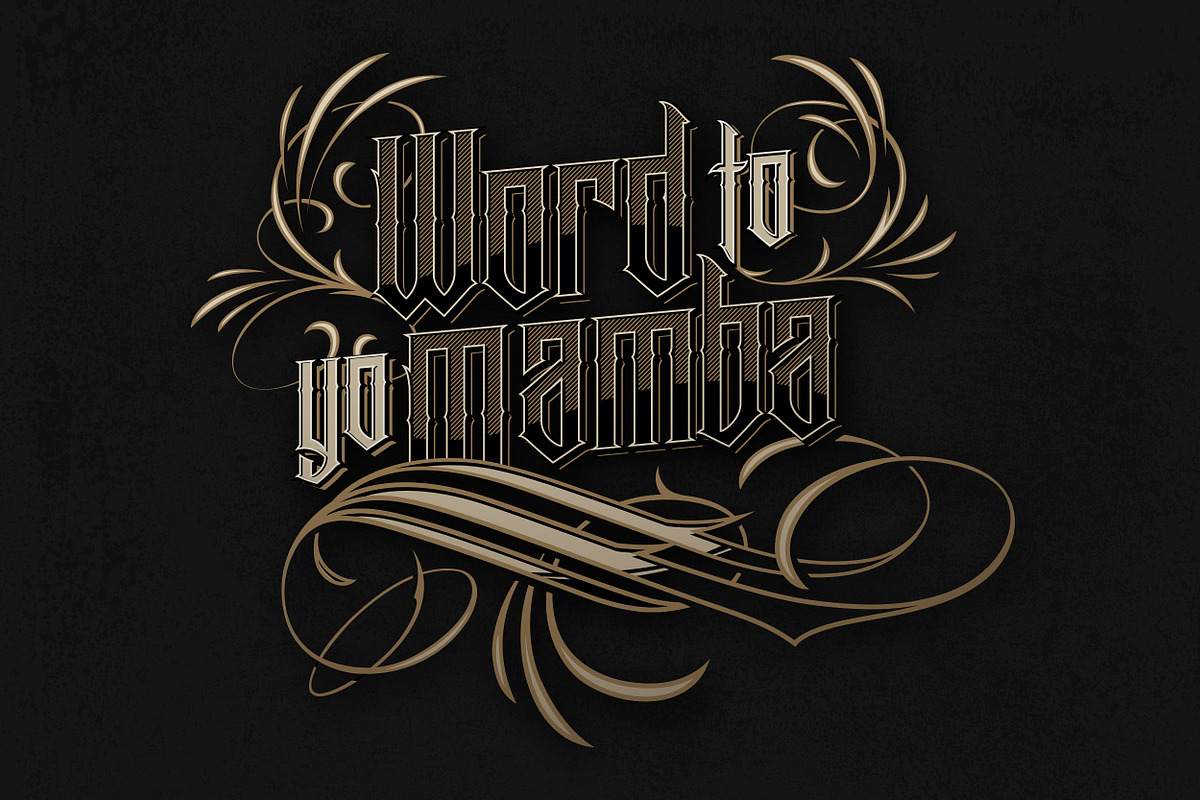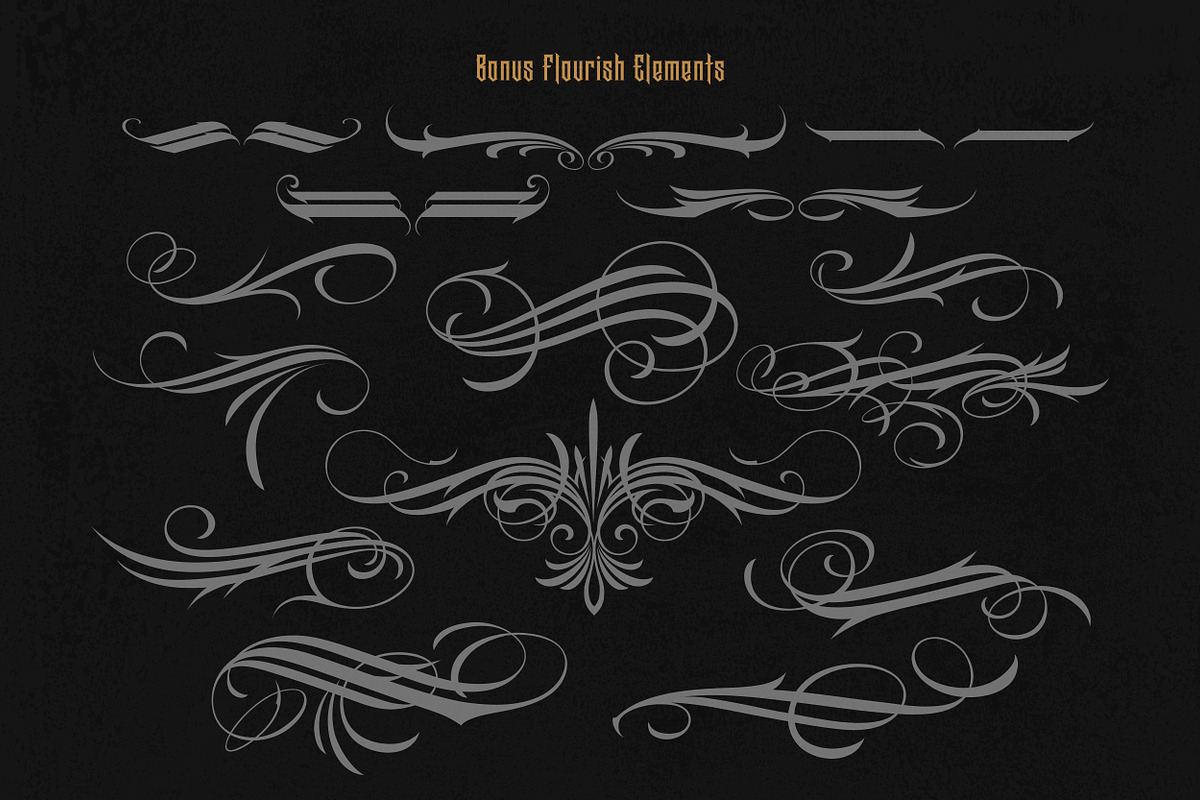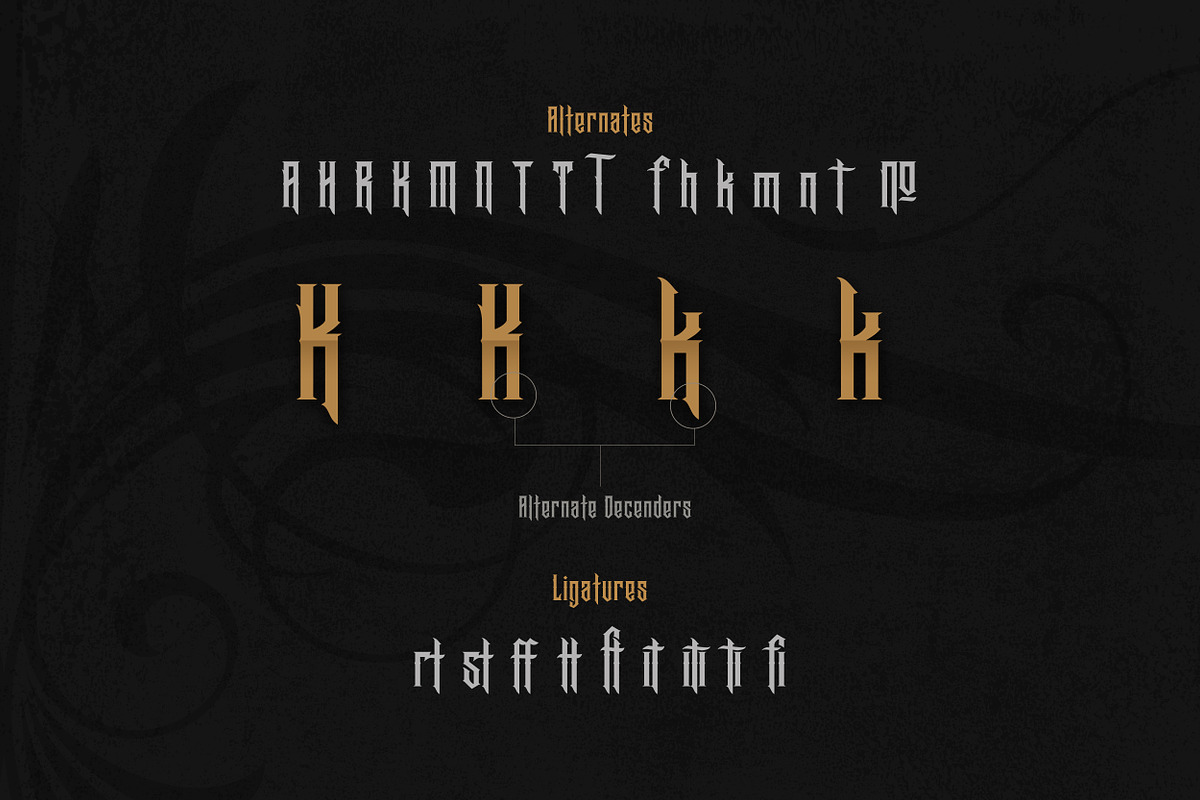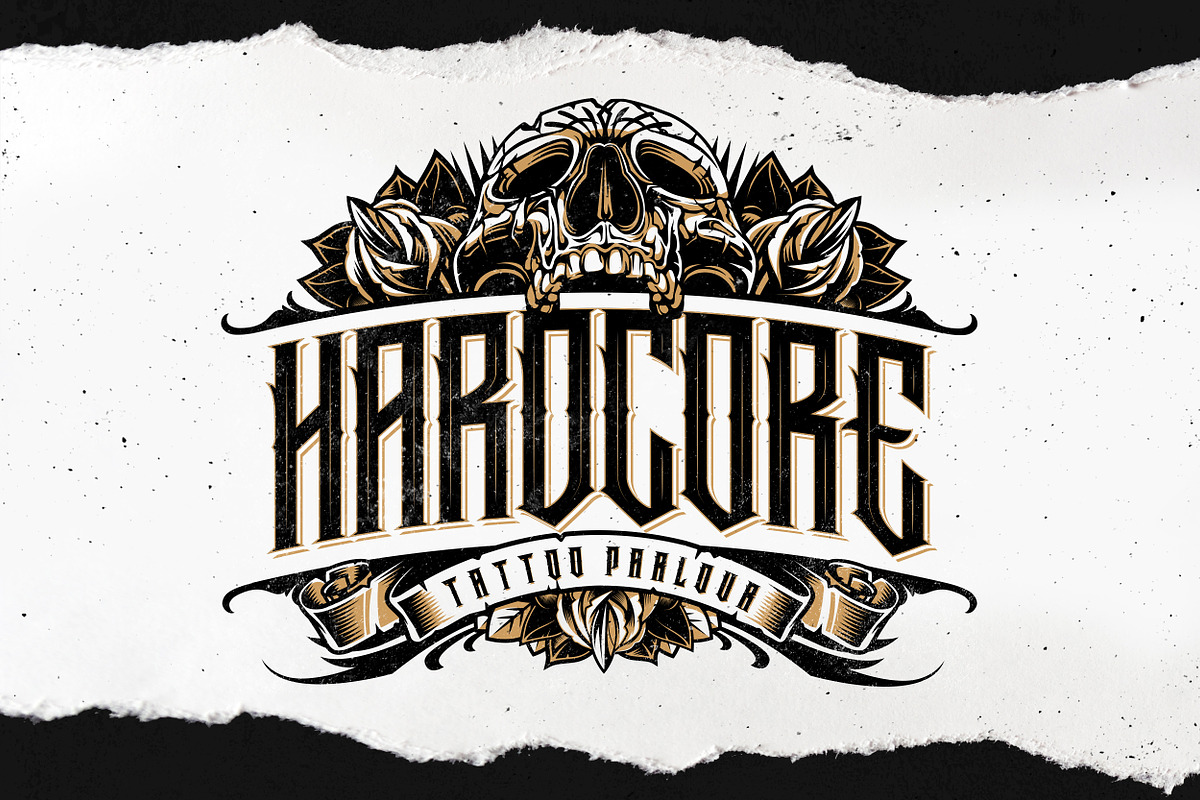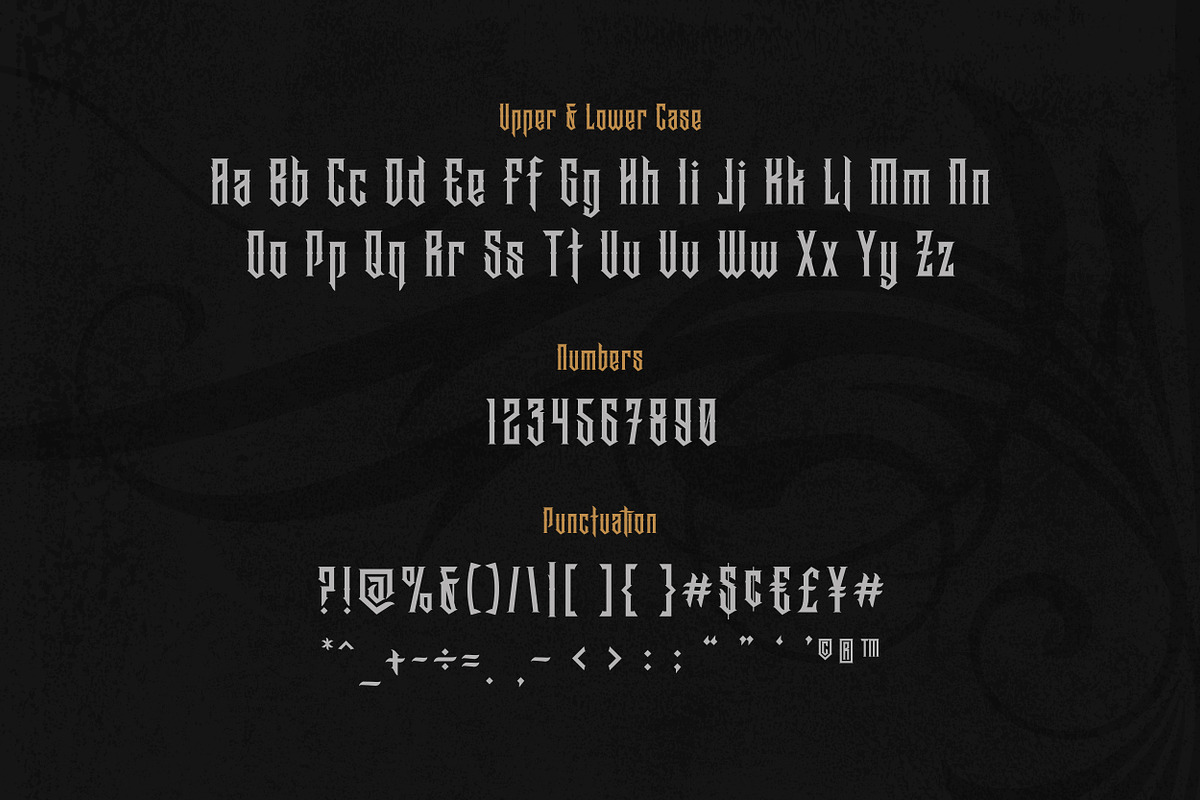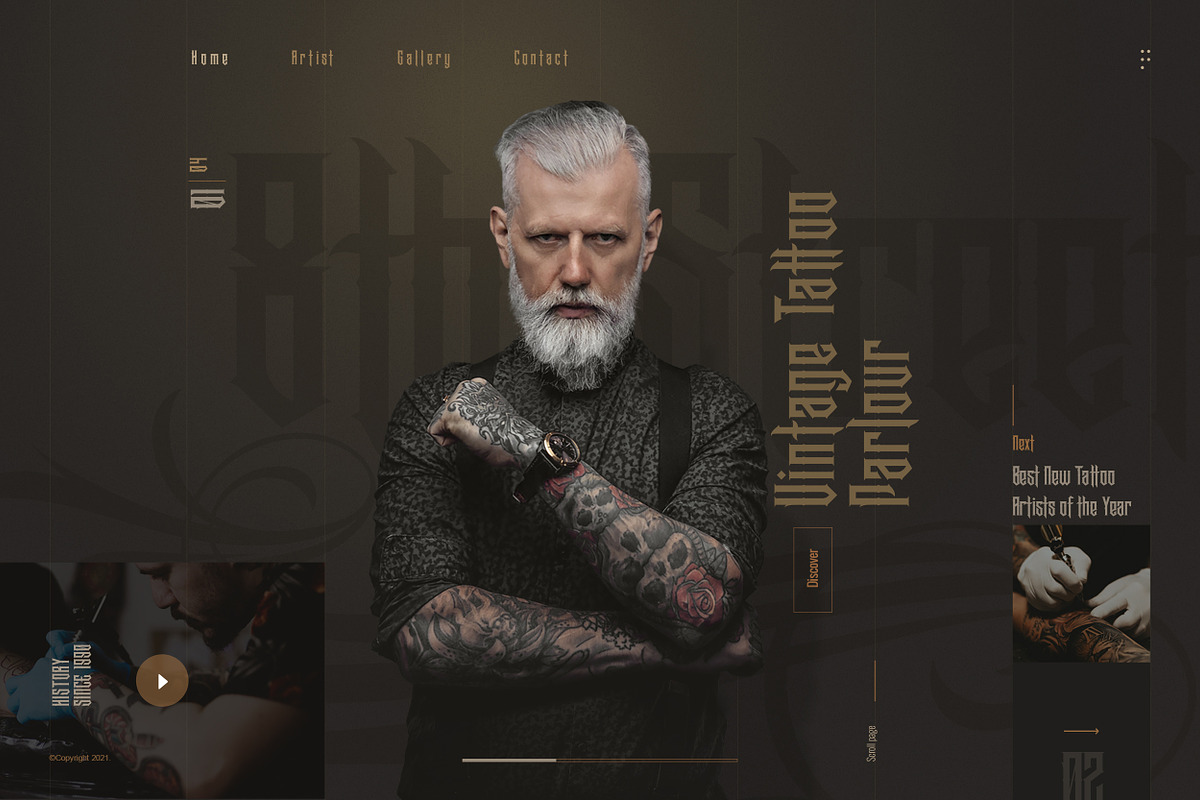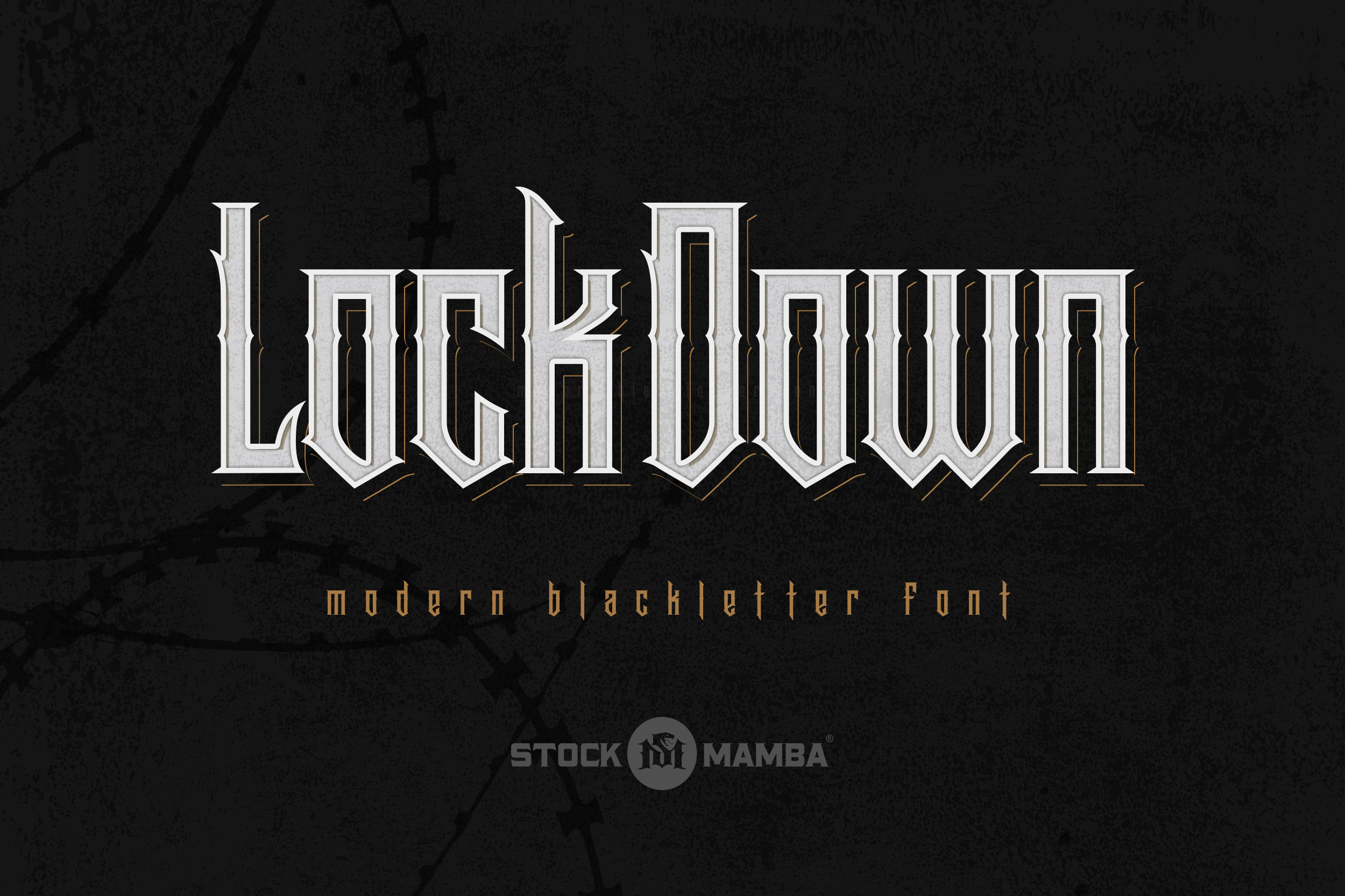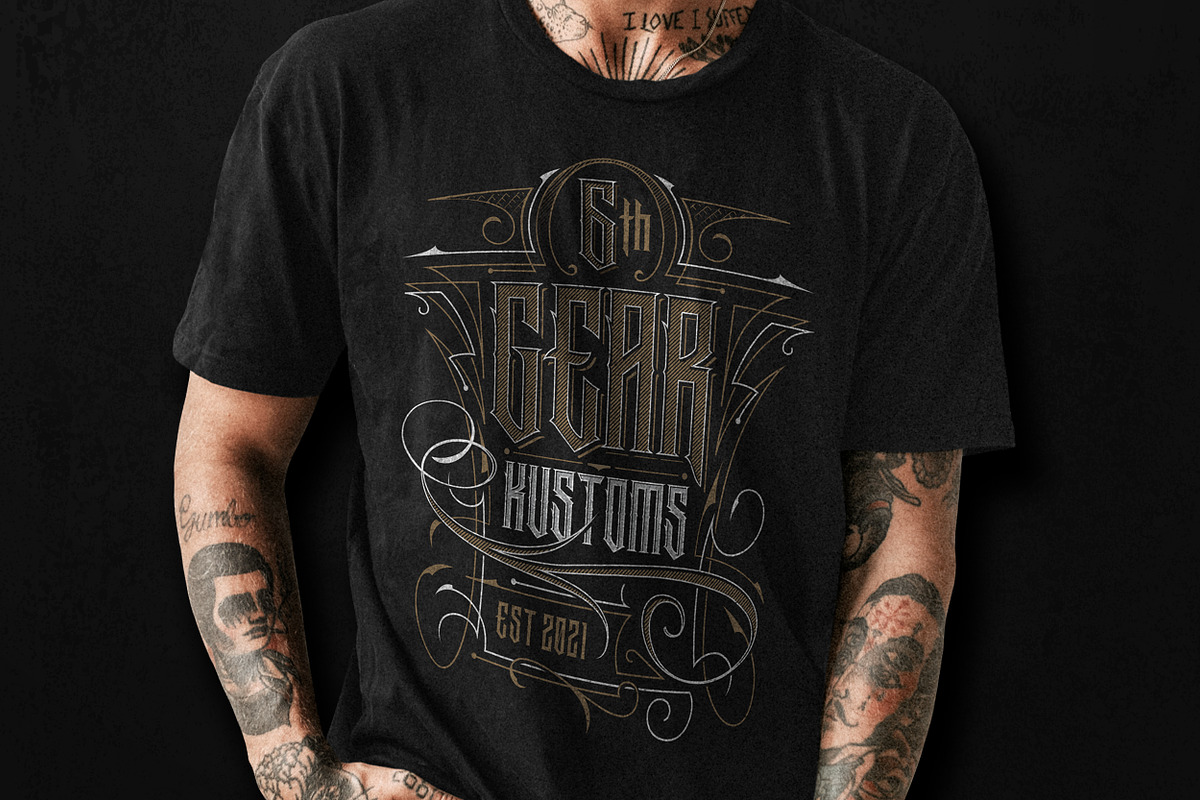
Lock Down Blackletter Font
Lock Down is a modern blackletter font designed to be used a display font for tattoo shops, t-shirts, posters, drink labels, etc. This font is not multilingual, but does contain the basic Latin characters, numbers and punctuation. Bonus set of matching flourish design elements included as well.